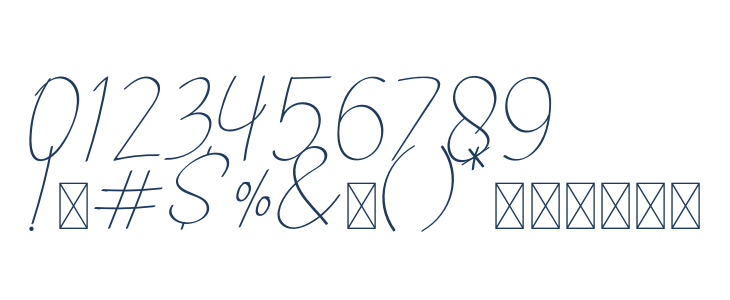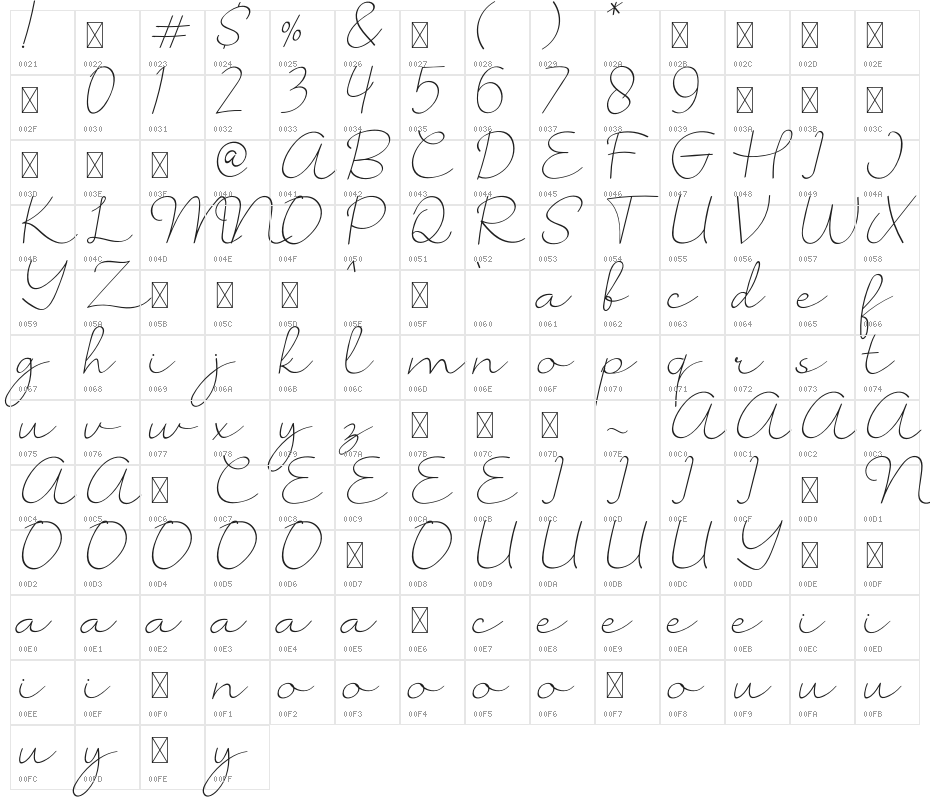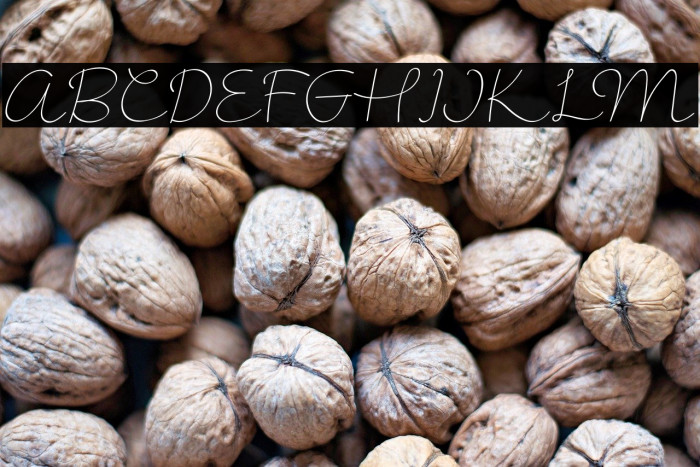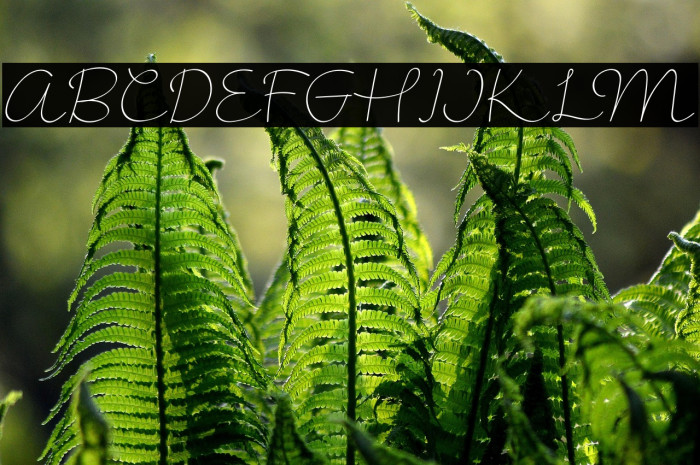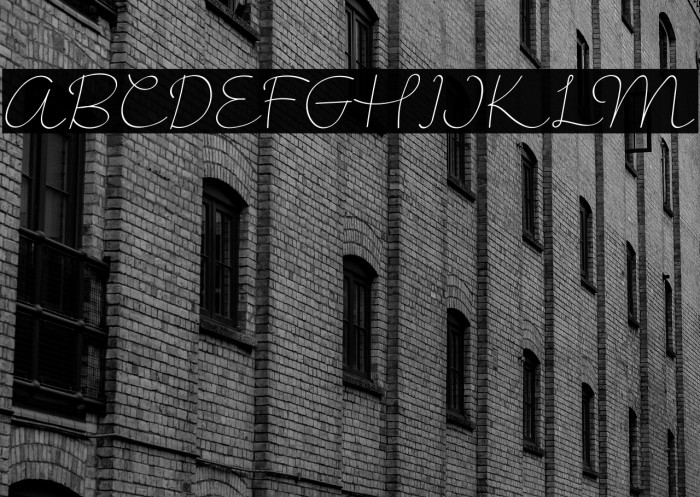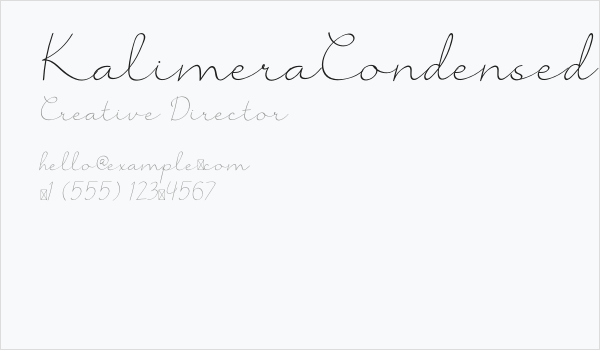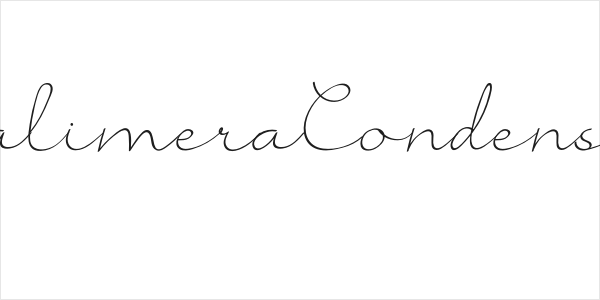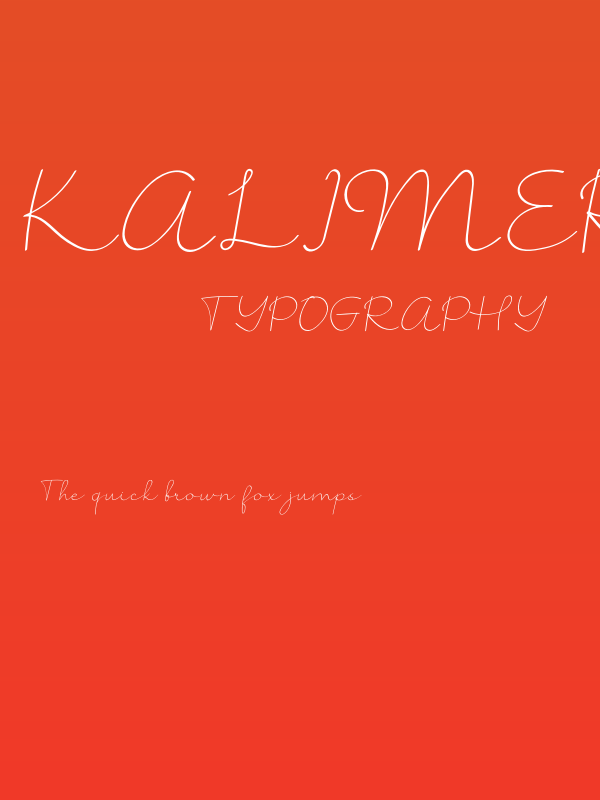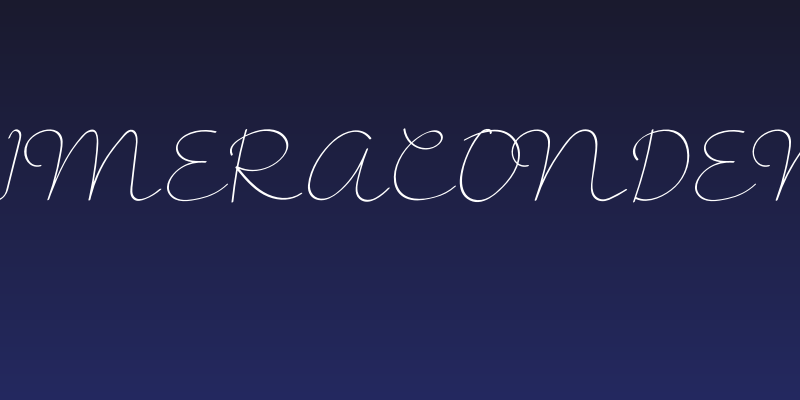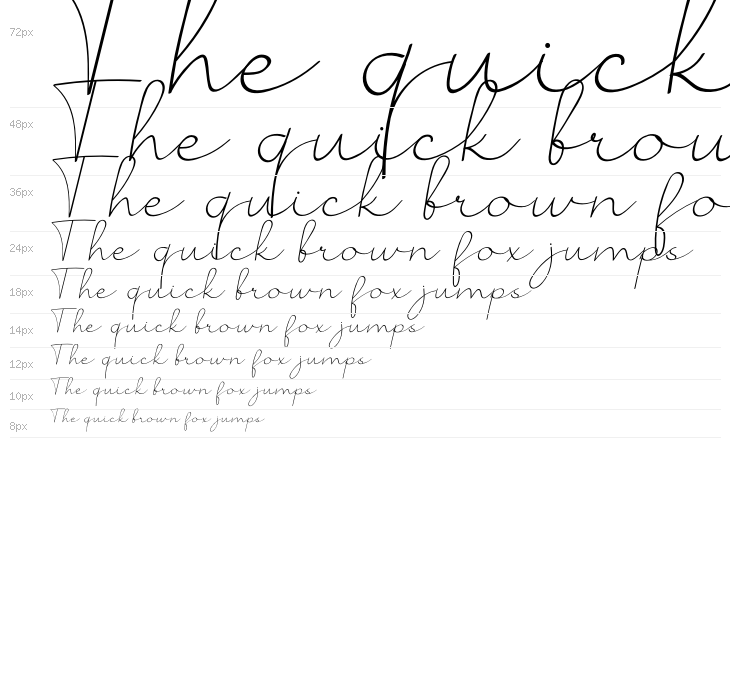
KalimeraCondensed Font
KalimeraCondensed Description
This elegant script font features a delicate, flowing style that mimics the fluidity of handwritten cursive. The characters are gracefully connected, with a consistent slant that adds a sense of motion and sophistication. The uppercase letters are slightly more ornate, with subtle flourishes that enhance their visual appeal. The lowercase letters maintain a smooth, continuous line, creating a harmonious balance between each character. The numerals are clear and legible, with a similar slant that ties them cohesively to the alphabet. Special characters are thoughtfully designed to match the overall aesthetic, ensuring a seamless integration into any text. This font's refined and airy appearance makes it ideal for projects that require a touch of elegance and personal flair.
| Width | Condensed |
| Overall Style | Elegant, Handwritten |
| Use Case | Invitations, Branding, Artistic projects |
| Proposed Projects | Ideal for wedding invitations, elegant branding, personal stationery, and artistic projects. |